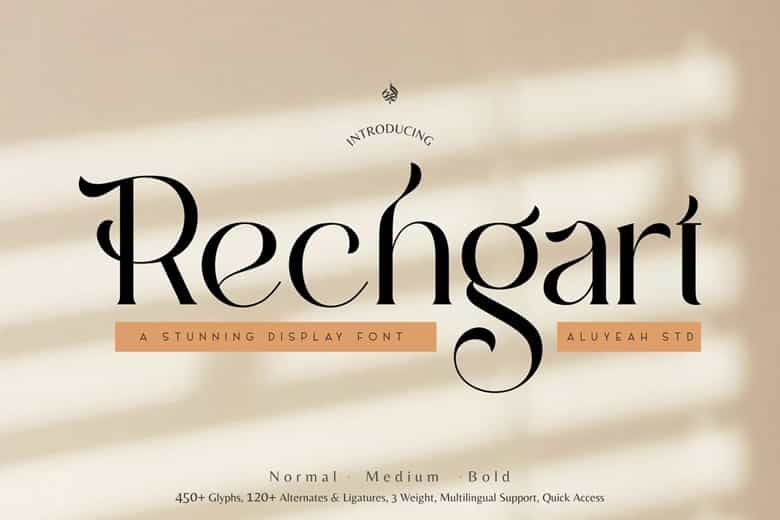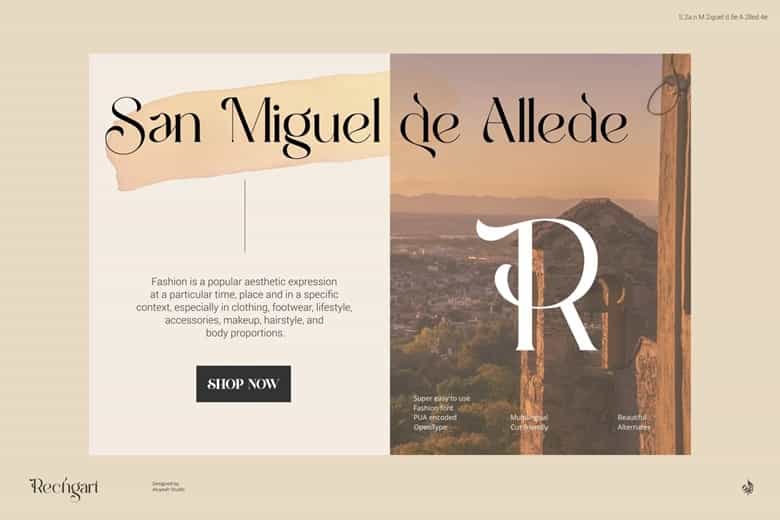
Rechgart is a new stunning display serif font. This font has 120 and more alternates, ligatures that would enable you to create designs of your dreams. It comes in 3 styles with the ability to access small caps variants in alternates, gives you the best font that will suit your needs. This should definitely lend an elegant, majestic, distinguished, exquisite component to contain in any design.